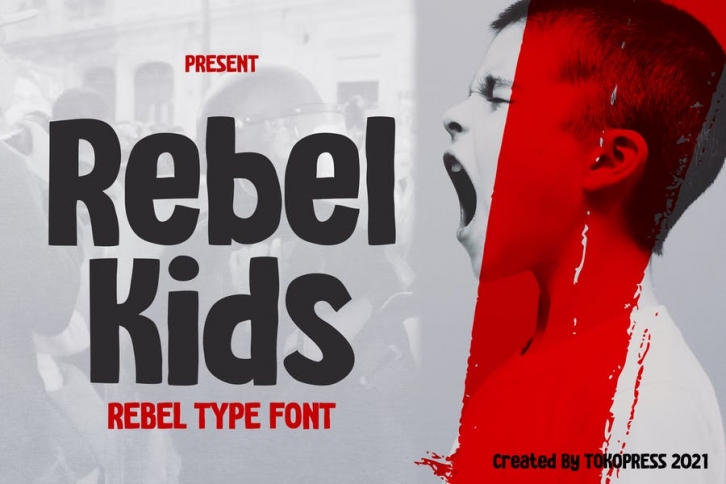
Rebel Kids - Modern rebel font
Kids do have a lion in their inner self. And REBEL KIDS is all abouit that. The spirit, the energy, all of them.
Suit perfectly for kids and teenager market audiences, poster, movie title, rebel theme restaurant/ cafe menu, magazine, youtube covers, youtube thumbnails, social media page covers and so on...